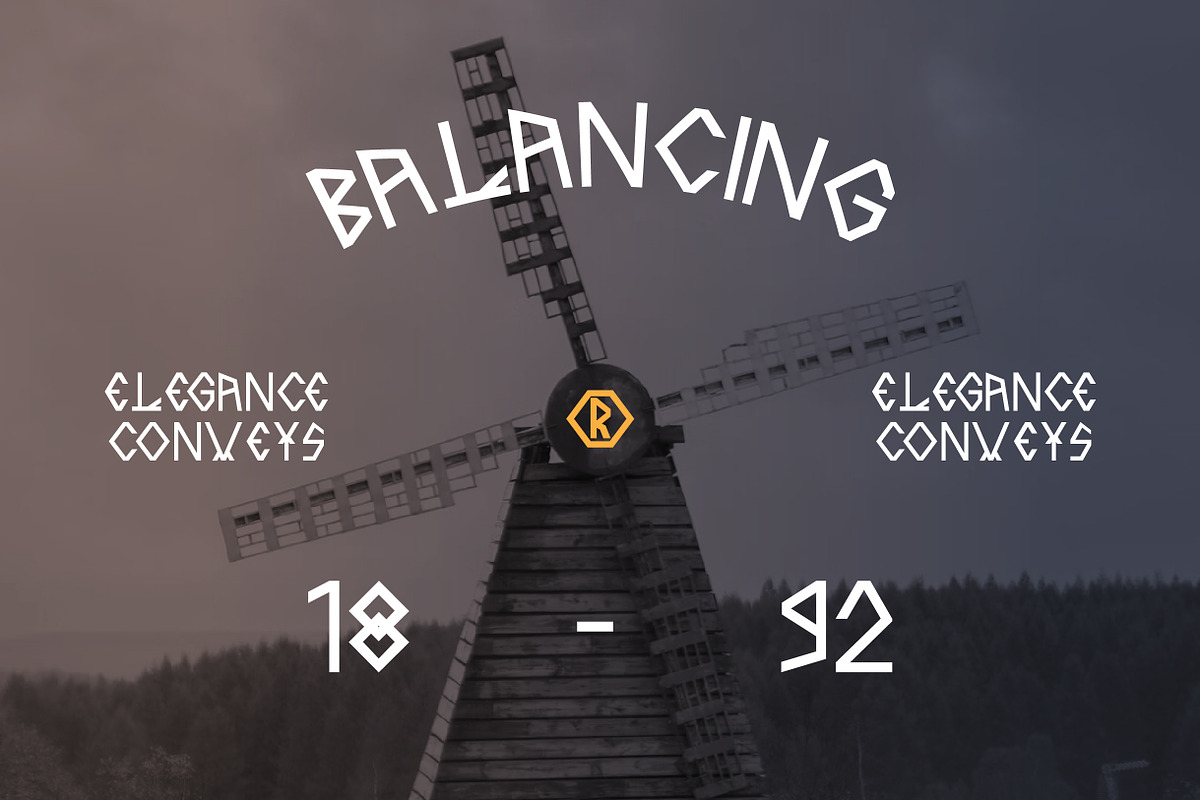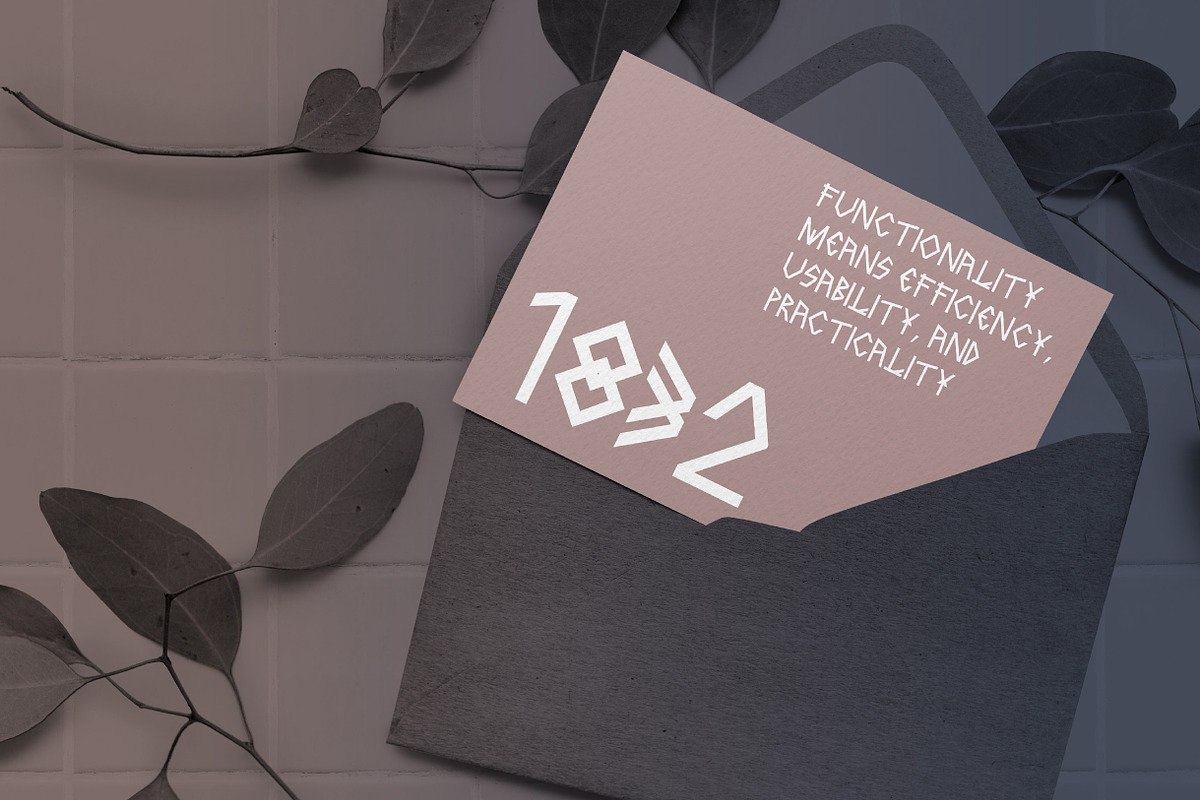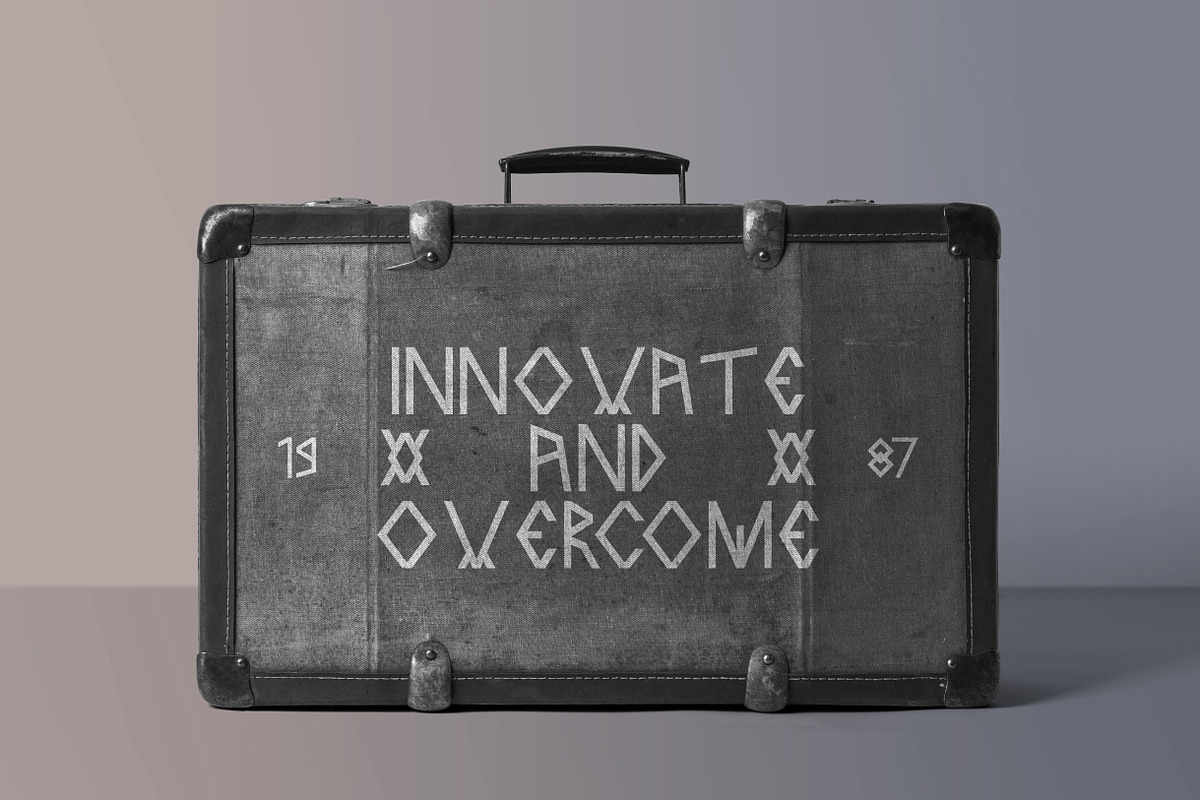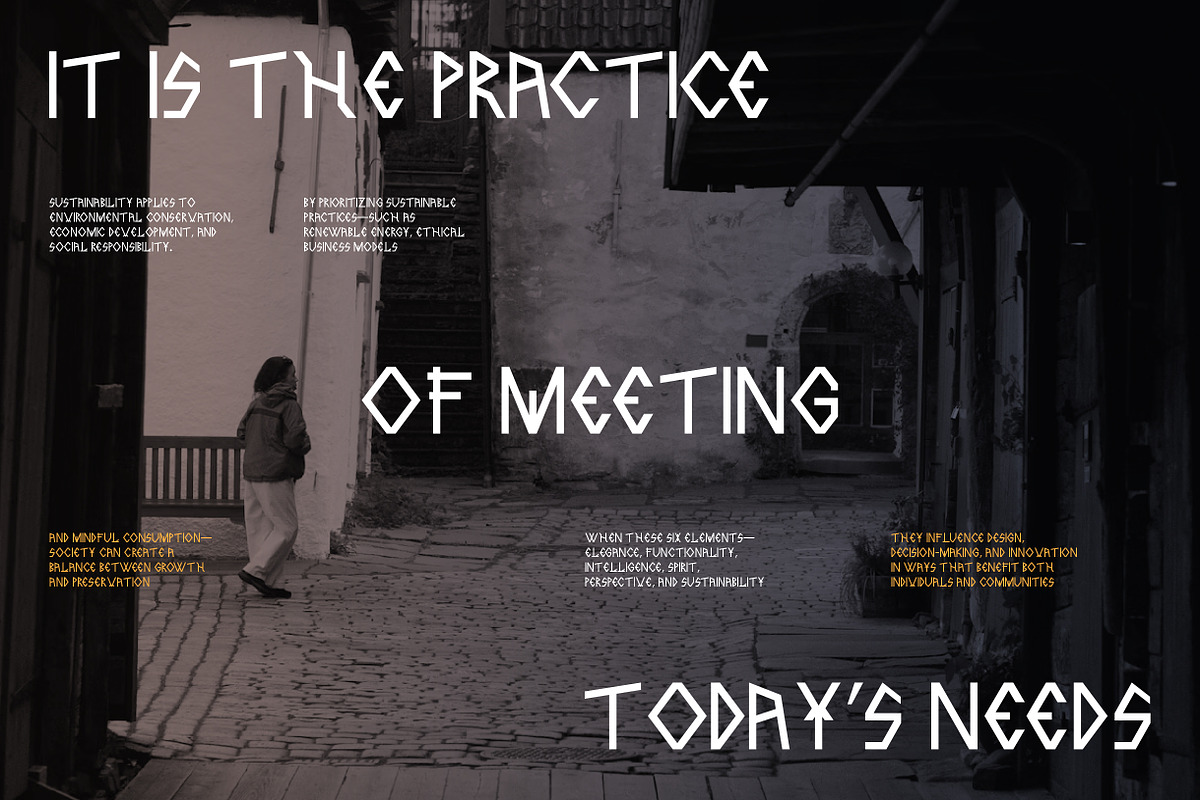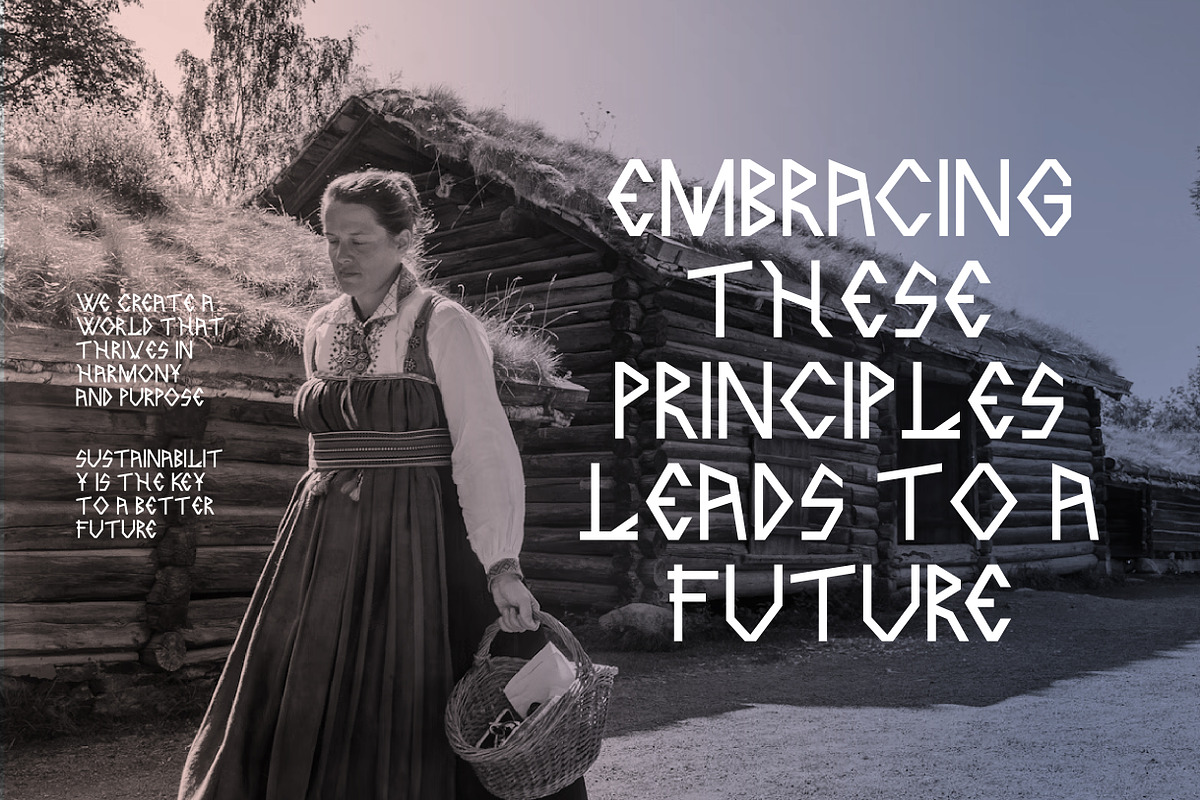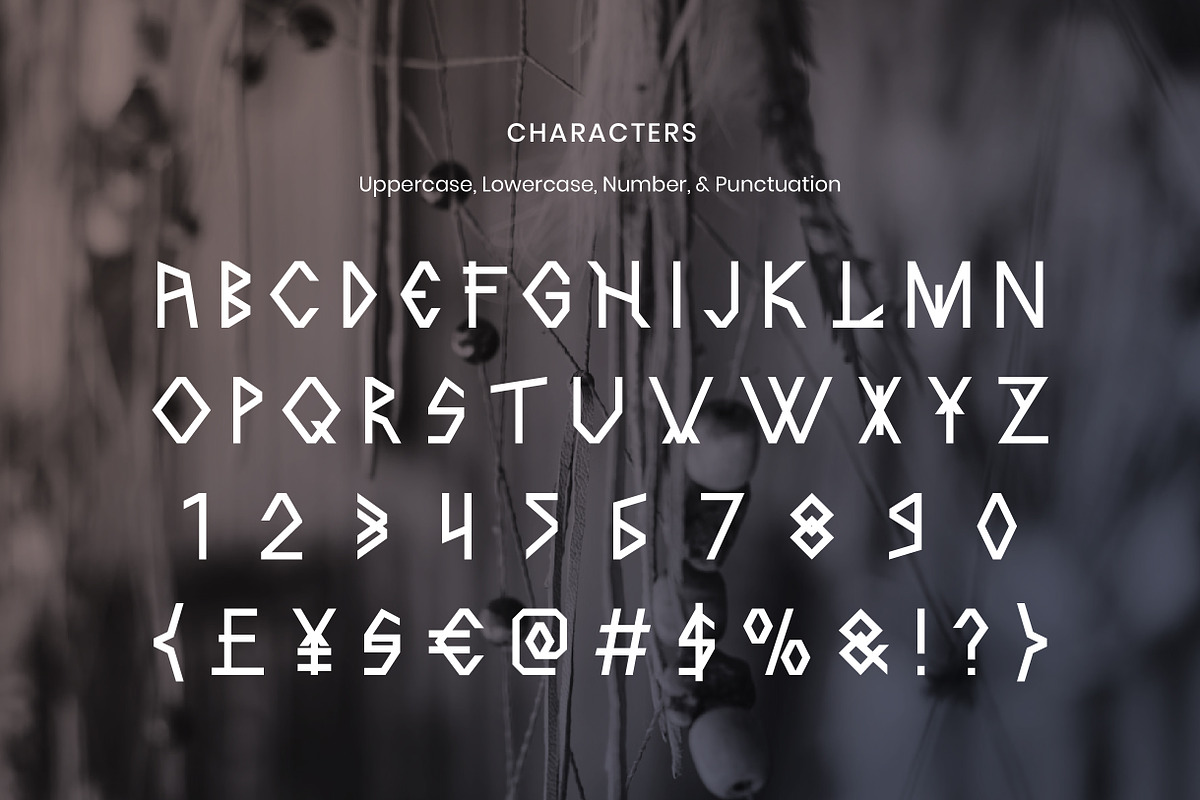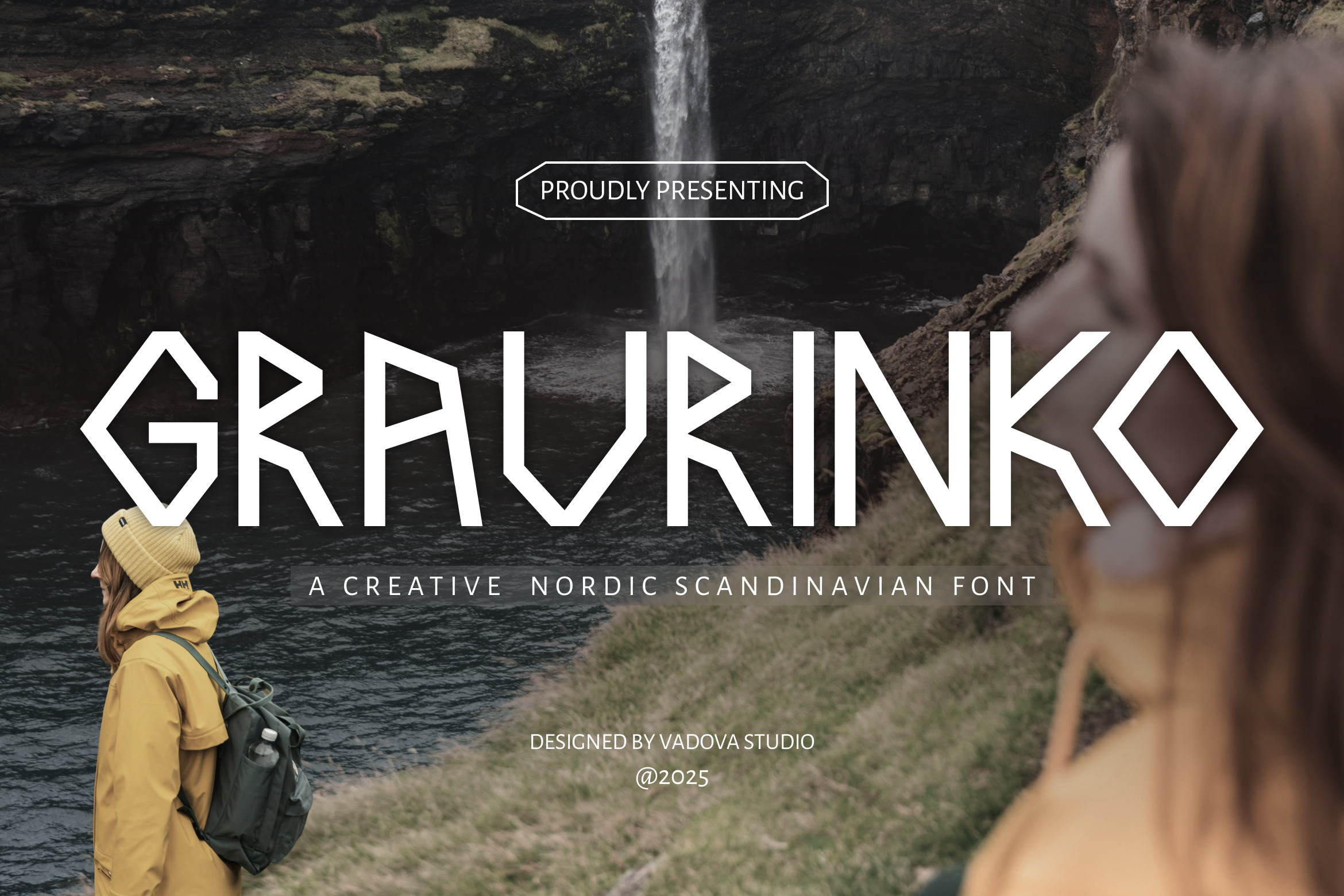
Graurinko Nordic Display Font
Graurinko is a creative Nordic display font with geometric cuts and angular details inspired by Scandinavian rune shapes. It combines sharp minimalism with adventurous spirit, resulting in a typeface that feels both rugged and modern.
Perfect for branding, posters, and packaging that seek an authentic northern touch, Graurinko adds sophistication and originality while staying clean and highly legible in display use.
- Unique geometric letterforms inspired by Nordic runes
- Uppercase, numerals, and punctuation characters
- Bold, angular structure for impactful titles
- Modern Scandinavian aesthetics
- Excellent for adventure branding, outdoor gear design, and editorial layouts
- Strong visual rhythm for headlines and logos
- Adds authenticity to rustic, minimalist, or travel-themed projects
Relevance and Use Cases is perfect for adventure branding, outdoor fashion, product packaging, nature posters, travel-themed visuals, Scandinavian design projects, editorial titles, and logo identities.
Express bold northern elegance with Graurinko — a creative geometric display font inspired by Nordic culture.